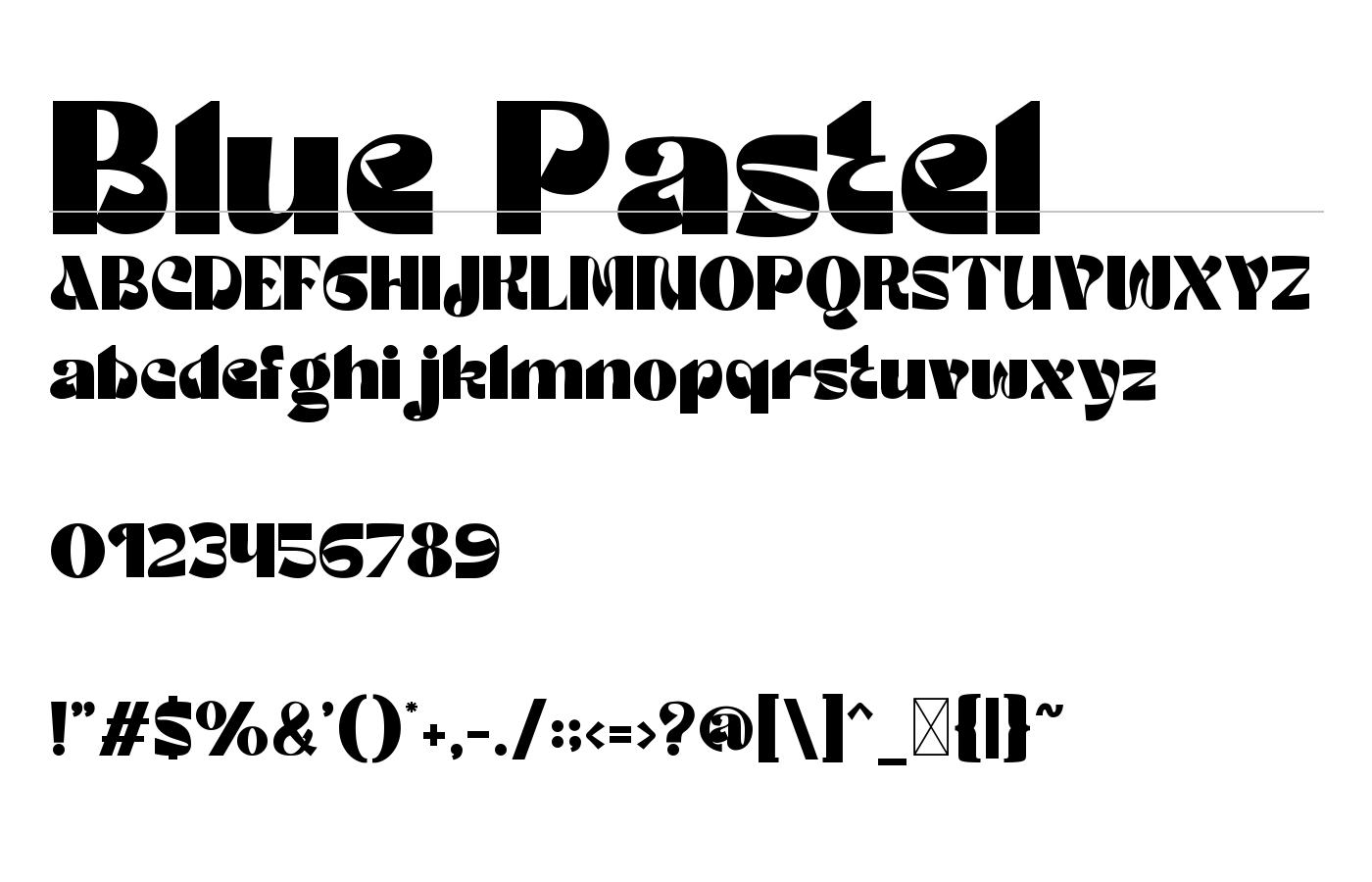
Blue Pastel is a bold, serif display font with a strong, artistic flair, featuring high contrast between thick and thin strokes and distinctive, stylized letterforms that lend it a dramatic and creative personality. Its unique curves and angled cuts give it a modern yet vintage feel, making it perfect for eye-catching headlines, logos, and branding projects that want to stand out with a daring, sophisticated edge. This font works best where a striking visual impact is needed rather than for long texts, offering a playful yet elegant touch to fashion, editorial, and poster designs.
Blue Pastel Font
About Blue Pastel Font